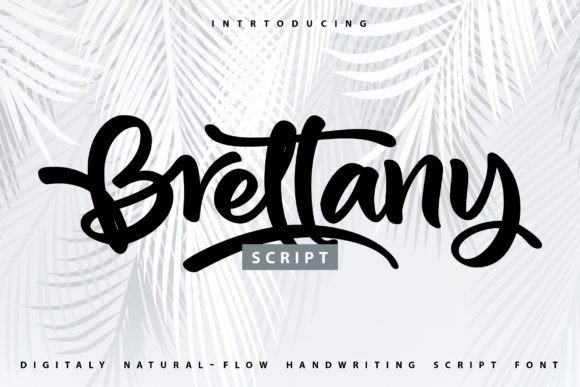
The Perfect Touch of Elegance: Discovering the Beauty of Brettany Font
Have you ever been sitting at your desk, surrounded by scraps of paper, paint swatches, and half-finished designs, searching for that one thing that will elevate your project to the next level? That’s exactly how I felt when I stumbled upon the enchanting Brettany Font. Its delicate, flowing lines and elegant calligraphy style transported me to a world of sophistication and refinement.
Brettany Font is more than just a beautiful addition to your designs – it’s a versatile tool that can add a touch of personality to any project. Whether you’re creating a stunning invitation, a heartfelt greeting card, or a bold branding material, this font is sure to make your work stand out. Its PUA encoding makes it easy to access all of the glyphs and swashes, giving you endless possibilities to experiment and create.
As a designer, you know how valuable it is to have a reliable and expressive font at your disposal. Brettany Font is that perfect companion, offering a unique blend of style and functionality that will elevate your designs and leave a lasting impression on your audience.
Brittany Font Key Features
- Unique Characteristics: The font features a beautiful, elegant script with a mix of cursive and calligraphic elements, making it ideal for wedding invitations, greeting cards, and other special occasions.
Brettany Font Review
I recently had the chance to work with the Brettany font, and I must say it’s a unique and intriguing choice. ✨ One thing that really stands out is its elegant, cursive script. It’s perfect for adding a touch of sophistication to wedding invitations, wedding stationery, or other formal events.
Another aspect I appreciate about Brettany is its wide range of language support. ✨ It’s available in over 200 languages, making it a great option for global brands or companies that cater to diverse audiences.
While Brettany is a beautiful font, there are a few limitations to consider: ⚠️
- Lack of bold and italic weights – while it’s a script font, it’s not ideal for headings or titles that require bold or italic emphasis.
- Some characters may not be suitable for digital use – I noticed that some of the font’s flourishes can make it difficult to read on smaller screens.
- Not as versatile as other script fonts – while it’s perfect for formal events, it may not be the best choice for everyday use or more casual applications.
Overall, I think Brettany is a lovely font that’s perfect for specific use cases. While it has some limitations, its elegant script and wide language support make it a great choice for formal events or global brands. Just be sure to consider its limitations before using it for everyday use or digital applications.
Brettany Font is suitable for a variety of applications, including wedding invitations, baby shower invitations, and other special occasion invitations. It is also a great choice for branding and marketing materials, such as business cards and brochures.